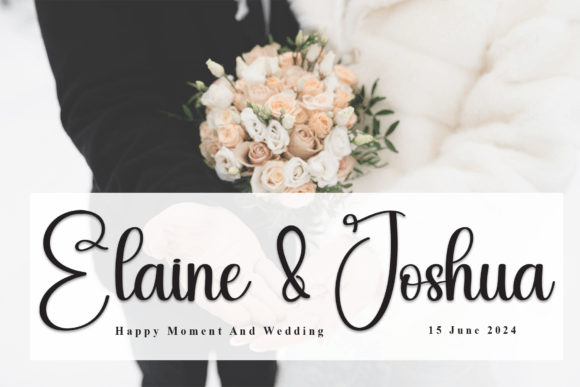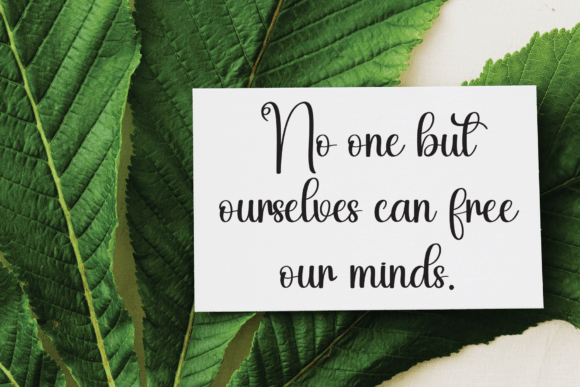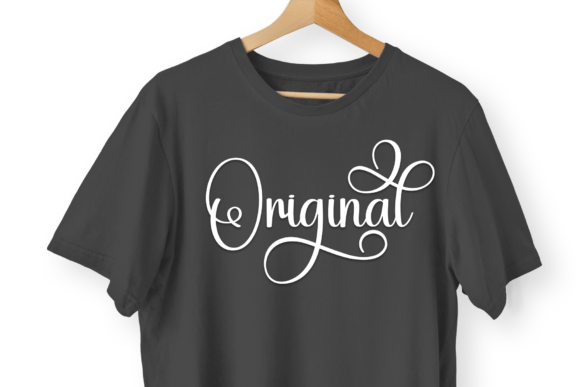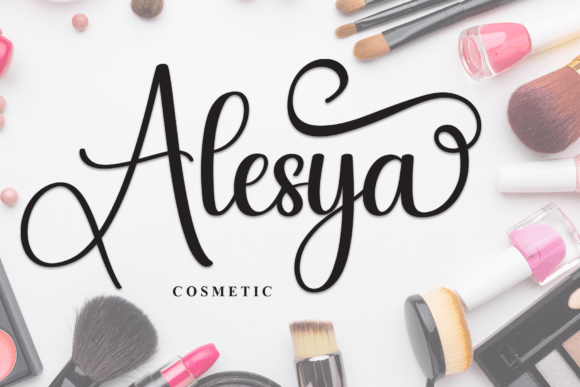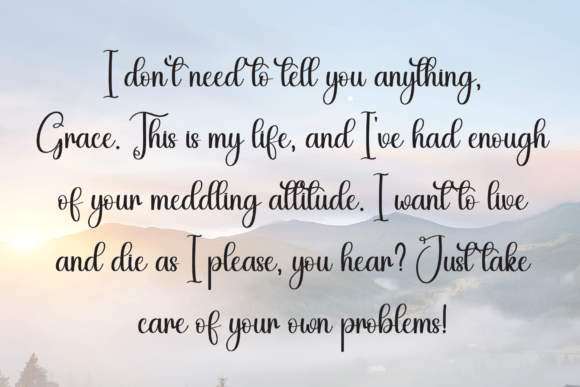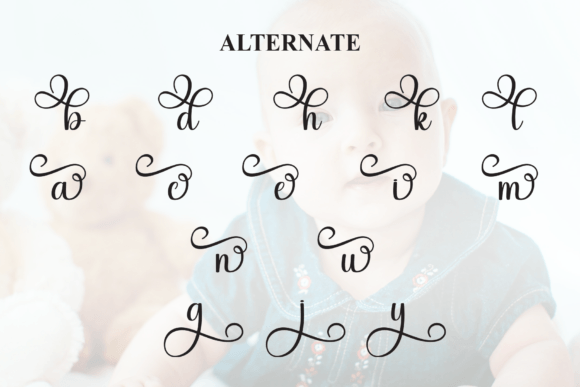
The Perfect Touch of Whimsy: Unveiling the Babyface Font
Do you remember the thrill of browsing through your grandmother’s attic, uncovering old love letters and handwritten notes? The way the ink danced across the paper, the imperfections, the character – it’s a sensory experience that never gets old. As designers, we’re always on the lookout for that special something that adds a touch of personality to our projects. And that’s exactly what the Babyface Font offers – a stylish and elegant script font that adds a handwritten touch to any design.
Whether you’re creating wedding invitations, thank you cards, or business cards, the Babyface Font is the perfect addition to your design toolkit. Its versatility and sophistication make it a valuable asset for designers looking to add a touch of whimsy to their work.
Babyface Font Key Features
- Font Family: Babyface, Babyface Regular, Babyface Italic, Babyface Bold, Babyface Bold Italic
- Unique Characteristics: Babyface Font features a unique, hand-drawn design with subtle imperfections, giving it a warm and human touch. It is ideal for use in logos, branding, and packaging design.
Babyface Font Review
I recently had the chance to work with the Babyface Font, and I must say it’s a unique and playful choice for your designs. Here are some of my thoughts.
- ✨ The Babyface Font has a fun, cursive feel that’s perfect for titles, headings, and short paragraphs. It’s great for adding a touch of personality to your designs.
- ✨ The font is highly legible, even at smaller font sizes. This makes it a great choice for web design, social media, and other applications where text needs to be easily readable.
- ✨ The font is highly customizable, with a range of weights and styles to choose from. This gives you a lot of flexibility when it comes to finding the right look for your design.
- ⚠️ The Babyface Font may not be the best choice for body text, as it can be a bit too cursive and playful for large blocks of text.
- ⚠️ The font may not be as versatile as some other options, and it may not be suitable for formal or professional designs.
Overall, I think the Babyface Font is a great choice for designers who want to add a bit of fun and personality to their designs. It’s perfect for titles, headings, and short paragraphs, and it’s highly customizable. However, it may not be the best choice for body text or formal designs.
For best results, use the Babyface Font in conjunction with elegant graphics and simple backgrounds.
The Babyface Font is ideal for creating invitations, greeting cards, and other personal stationery.
Alternatives to Babyface Font
Playfair Display is an elegant and luxurious serif font, perfect for high-end branding and advertising. It features intricate details and ornate flourishes, making it ideal for creating a sense of sophistication and refinement. Compared to Babyface Font, Playfair Display has a more formal and traditional feel, while Babyface Font is more modern and playful.
Great Vibes is a stylish and modern script font, great for adding a touch of personality and whimsy to designs. It’s perfect for branding, packaging, and advertising, and is especially well-suited for creative industries. Compared to Babyface Font, Great Vibes has a more relaxed and casual feel, while Babyface Font is more polished and refined.
Carolyna Pro is a beautiful and elegant sans-serif font, perfect for modern branding and design. It features clean lines and a minimalist aesthetic, making it ideal for creating a sense of simplicity and sophistication. Compared to Babyface Font, Carolyna Pro has a more modern and sleek feel, while Babyface Font is more vintage and nostalgic.
Julius Sans One
Julius Sans One is a modern and versatile sans-serif font, great for a wide range of design applications. It features clean lines and a neutral aesthetic, making it ideal for creating a sense of professionalism and approachability. Compared to Babyface Font, Julius Sans One has a more neutral and understated feel, while Babyface Font is more expressive and emotive.